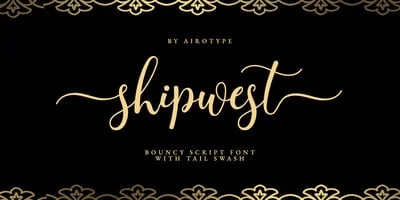
Shipwest Script
Shipwest Script Font
This sophisticated font excels in various design applications including maritime branding, coastal restaurant logos, nautical wedding invitations, sailing club signage, ocean-themed book covers, harbor business cards, yacht club materials, and seaside resort promotions. Its graceful character makes it perfect for projects requiring refined nautical aesthetics with timeless maritime appeal.
Shipwest Script Font is exciting because it captures the romance and adventure of seafaring traditions through fluid letterforms that echo the gentle curves of ocean waves and the elegant sweep of ship sails. The font embodies the spirit of maritime exploration while maintaining contemporary sophistication and excellent readability across various design applications.
The Shipwest Script Font family includes multiple nautical variations: Regular, Bold, Light, and Decorative styles. Some versions feature maritime flourishes, anchor-inspired embellishments, and rope-like connecting elements that enhance the authentic seafaring aesthetic. These family members provide designers with comprehensive tools for creating cohesive nautical-themed compositions with professional quality.
Whether you're designing for coastal businesses, maritime events, or ocean-inspired projects, Shipwest Script Font delivers exceptional elegance and nautical authenticity. This font transforms standard text into captivating maritime narratives that evoke the beauty and adventure of the sea with distinctive calligraphic refinement that honors traditional nautical design heritage.